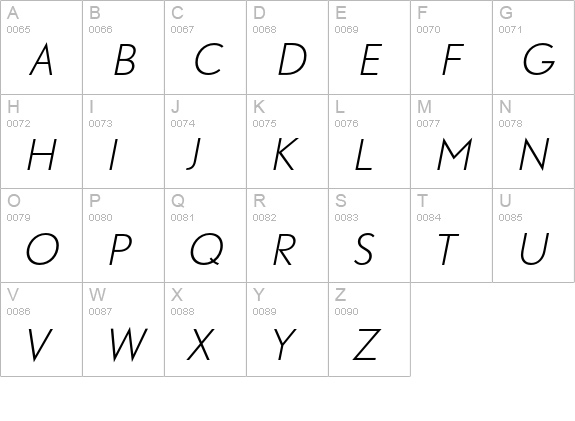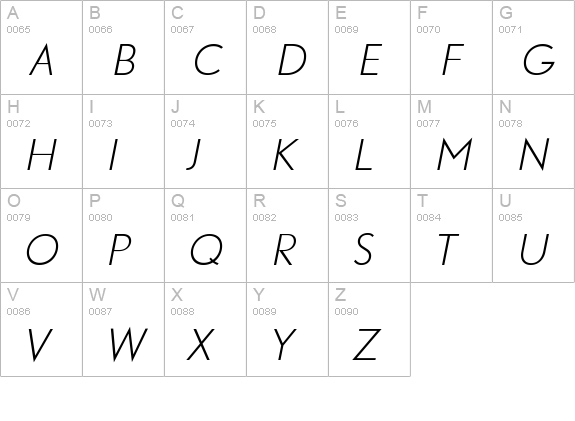
DTLNobelTLight-Italic is a distinctive, italic variant in the DTLNobelTLight typeface family \xE2\x80\x94 well suited to design and typography projects.
The DTLNobelTLight-Italic font is a sophisticated and elegant typeface that is perfect for adding a touch of style to any design project. Its delicate and graceful letterforms exude a sense of refinement and class. The italicized version of this font adds a subtle flair and a touch of flair to your text. What makes the DTLNobelTLight-Italic font even more appealing is that it is completely free to download at FontsMarket.com. This means that you can easily access this beautiful font and use it in your projects without any cost. Whether you're designing a poster, creating a logo, or working on a website, the DTLNobelTLight-Italic font is a versatile choice that will elevate your design to the next level.